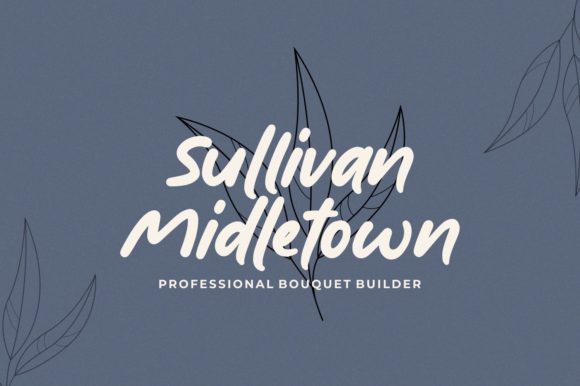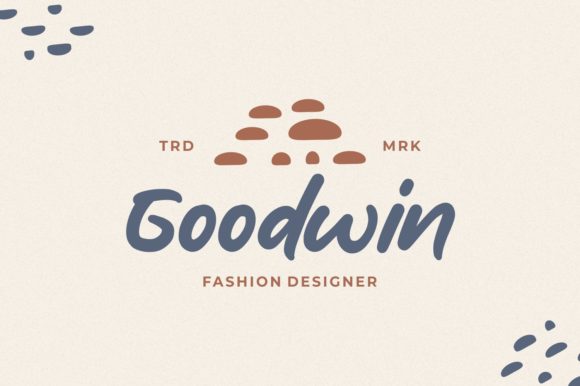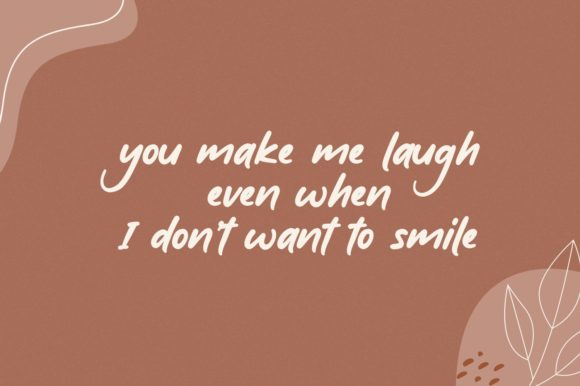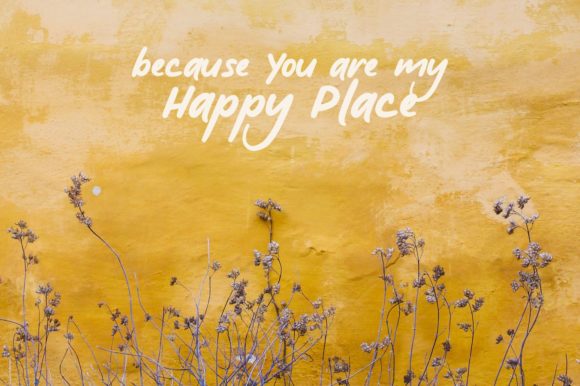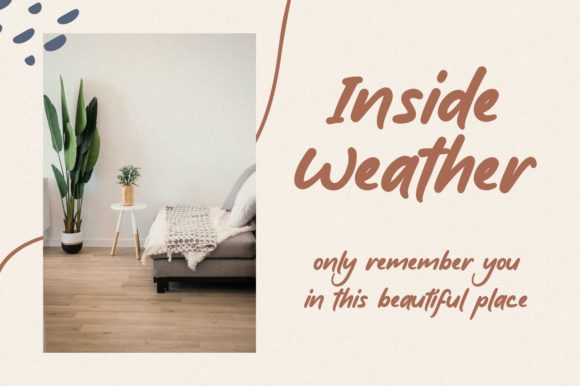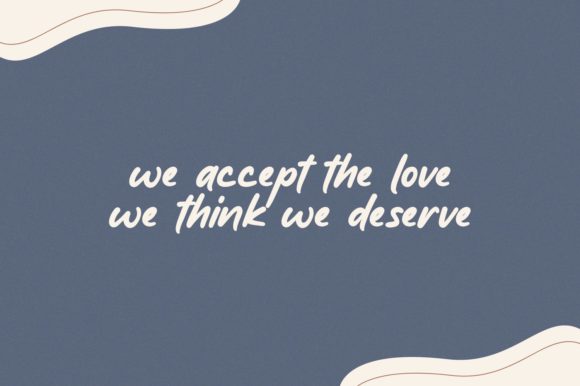
Introduction to Good Romance Font
Good Romance is a flowing handwritten font, described by an elegant touch, perfect for your favorite projects.
Why Choose Good Romance Font?
Good Romance Font offers exceptional quality and versatility, making it a valuable addition to your design toolkit. Whether you’re creating for personal projects or commercial use, Good Romance Font delivers professional results.